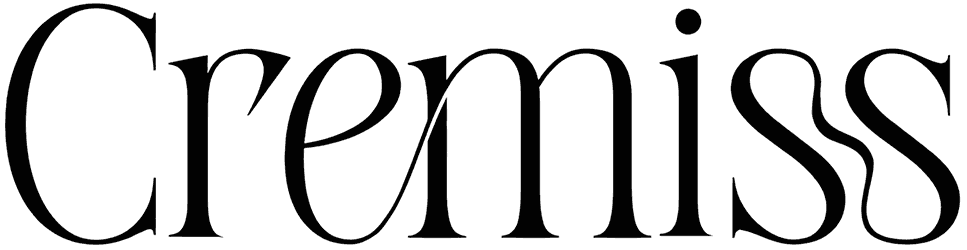
Cremisss Font
If you are in charge of a project with an official tone, you may find the Cremisss font useful. This luxury serif font is great for a wide range of print and digital uses due to its polished yet cheerful appearance.
Journals, book covers, internet banners, and movie posters all benefit from this tall and spacious font’s ability to set the mood. It only takes two minutes to give your simple letters an attractive, professional appearance!